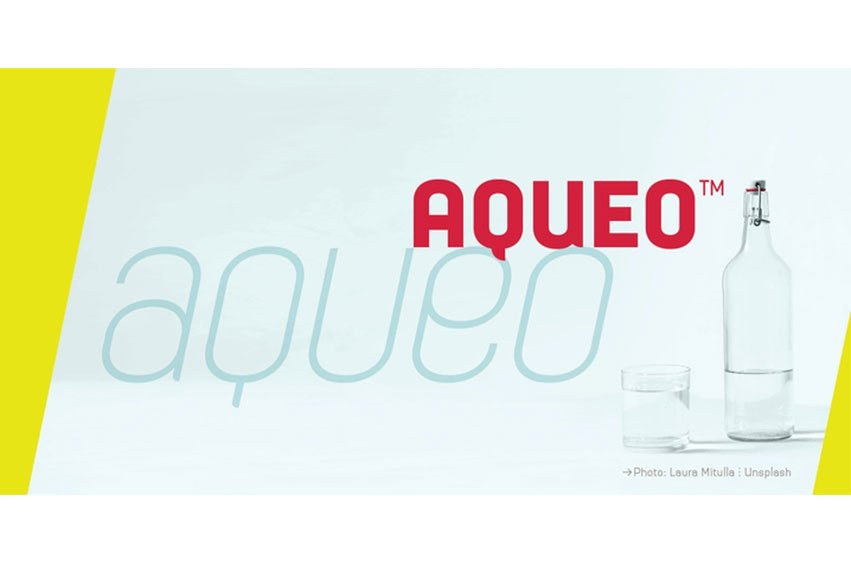
Aqueo Font is a versatile display font family inspired by the cylindrical wireframe of a water glass. The one-sided round corner details added a contemporary feel to this unique typeface.
It comes in 6 weights and 12 styles. To ensure the accuracy of the letterforms, we painstakingly drew a master set for each weight. And with over 1,350 glyphs each, Aqueo™ fonts support most Latin-based languages and feature an extensive set of stylistic alternates; The standard uppercase set takes more traditional forms, while the alternate uppercase set sports unorthodox lowercase forms. The standards exude confidence and dependability yet are friendly and approachable, and the alternates elicit more fun, quirky and whimsical.